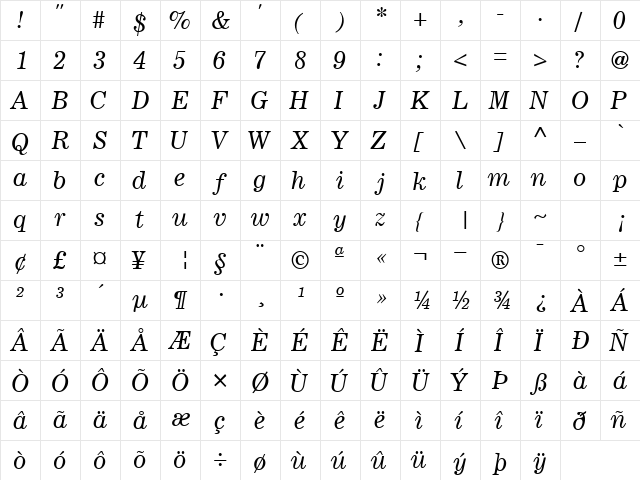
LockupSSK Italic Font Preview
LockupSSK Italic
Design Context for LockupSSK Typeface
LockupSSK is a composed and adaptable typeface that performs quietly and consistently across a wide range of design contexts. The dynamic lean of this cut emphasises speed and emphasis in any layout.
Pro Tip: Try LockupSSK for annotation and caption copy alongside an upright companion — the contrast in angle creates a dynamic but ordered typographic system.